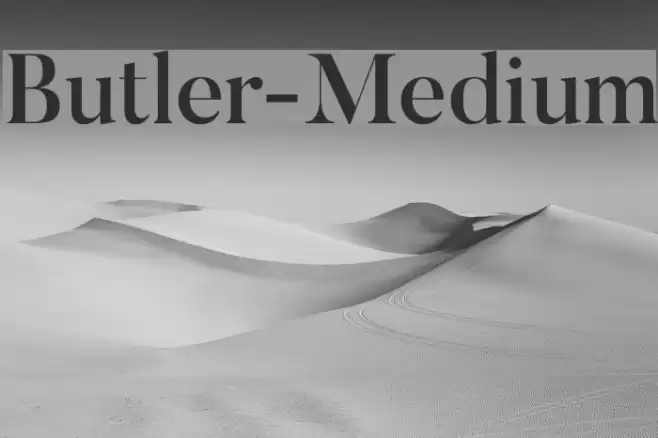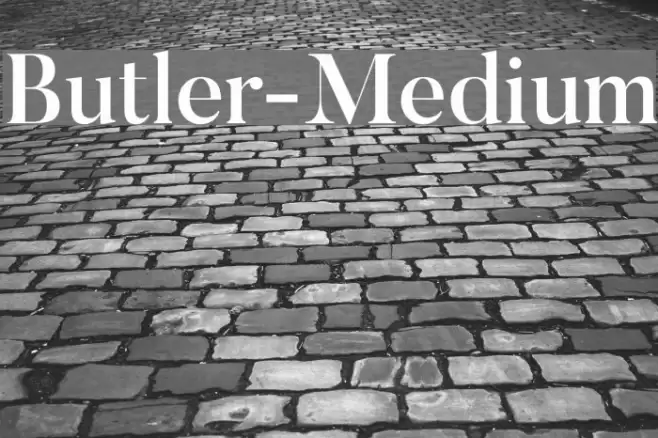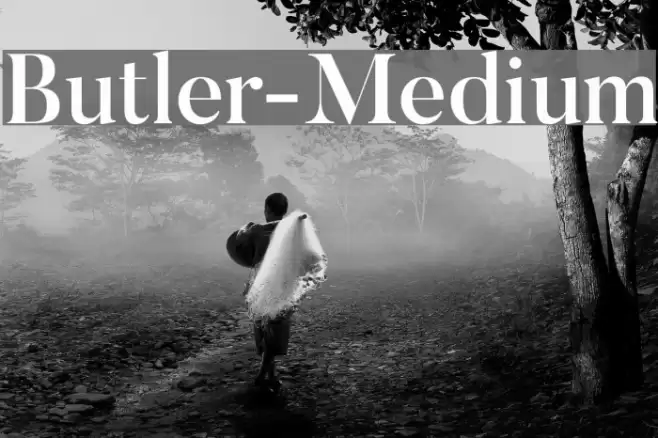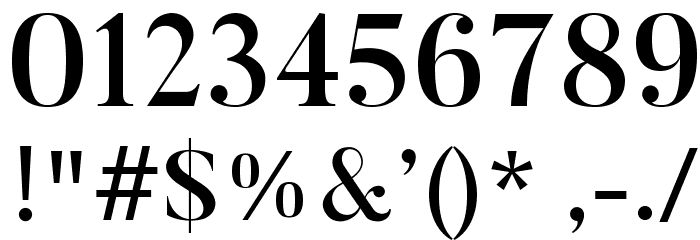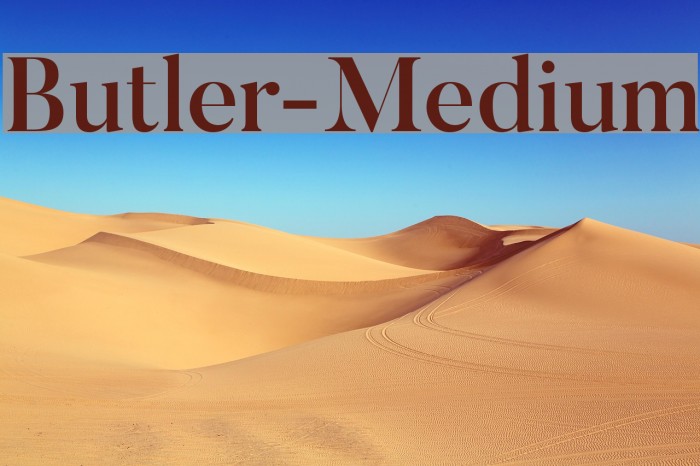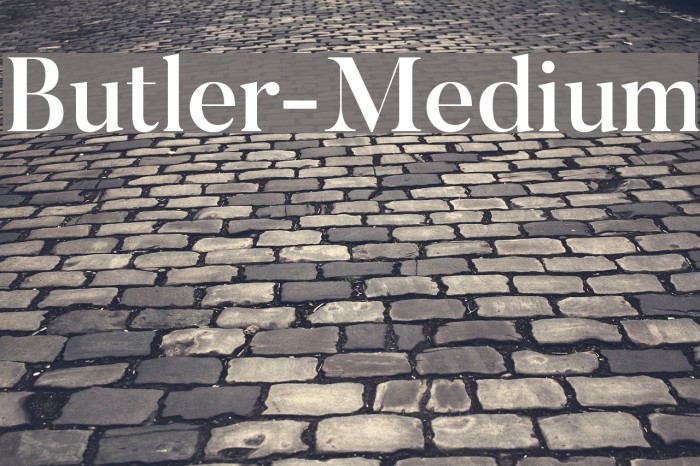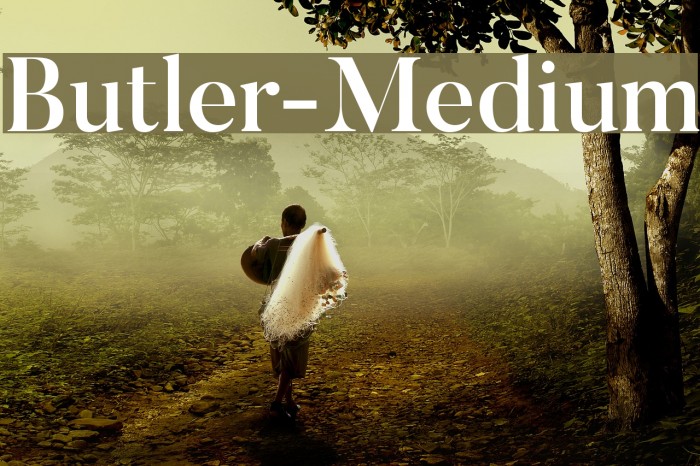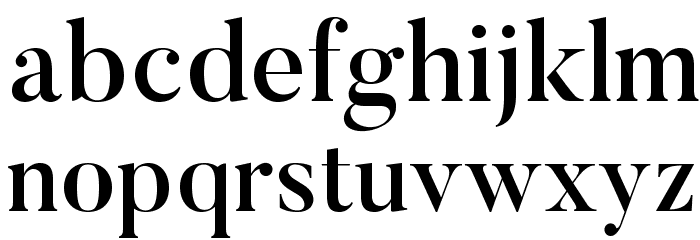
Butler-Medium Font
Butler-Medium Description
This font features a sophisticated and elegant serif design, characterized by its high contrast between thick and thin strokes. The uppercase letters exhibit a classic and refined style, with sharp serifs that add a touch of formality. The lowercase letters maintain a consistent flow, enhancing readability while preserving the font's overall elegance. The numerals are well-proportioned, aligning seamlessly with the alphabetic characters. Special characters are designed with the same attention to detail, ensuring a cohesive look across all text elements. This font is versatile, suitable for both digital and print media, and excels in creating a sense of luxury and professionalism.
A sophisticated serif font with high contrast and elegant design from Uncategorized fonts.
- Proposed Projects: Ideal for luxury branding, editorial design, wedding invitations, and high-end product packaging.
- Overall Style: Classic